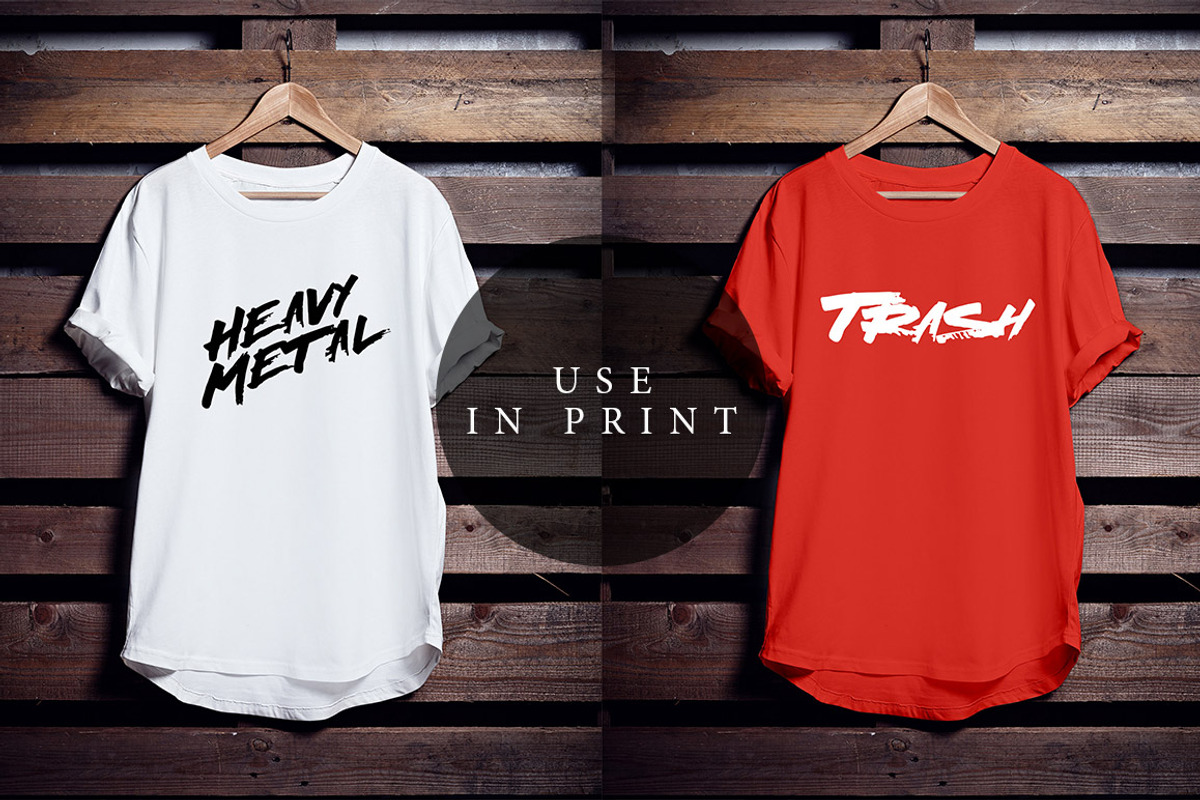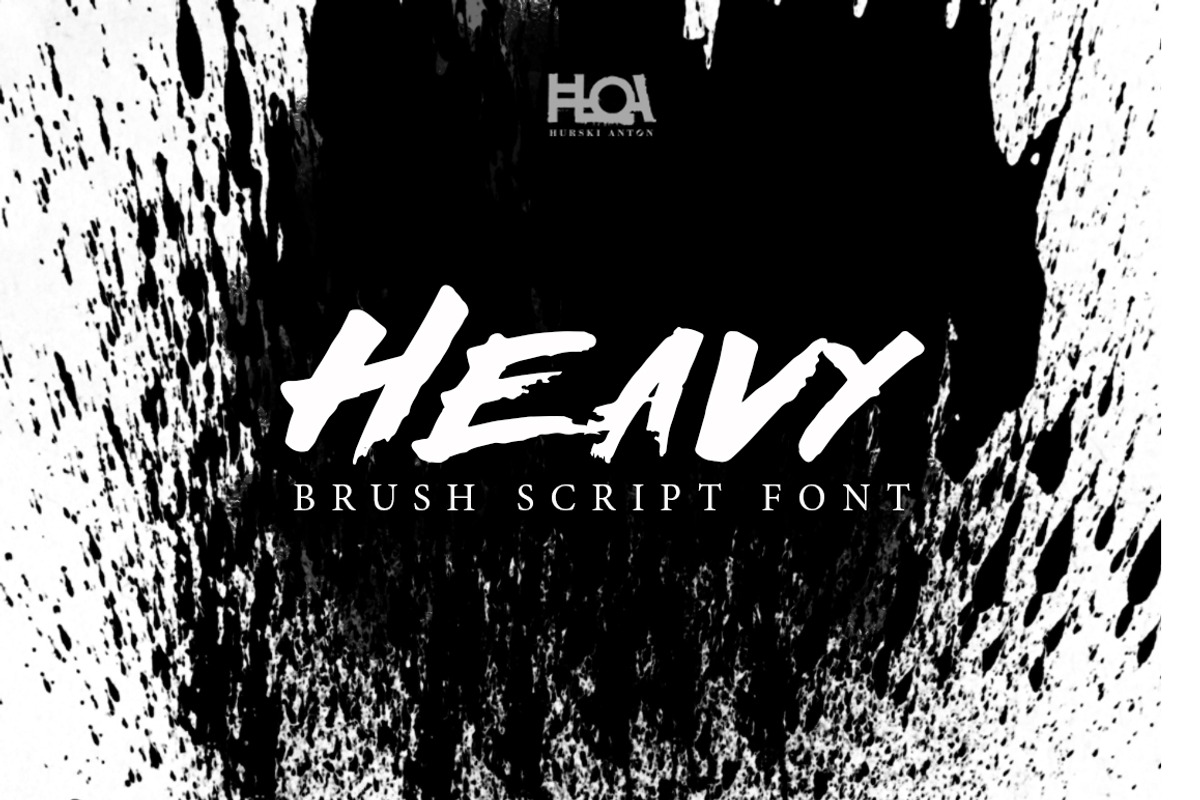
Heavy|Brush script font
Heavy - Brush script font
Why Heavy|Brush script font is worth a look
Heavy|Brush script font by Hurski Anton fits naturally into Branding, posters, packaging, typography.